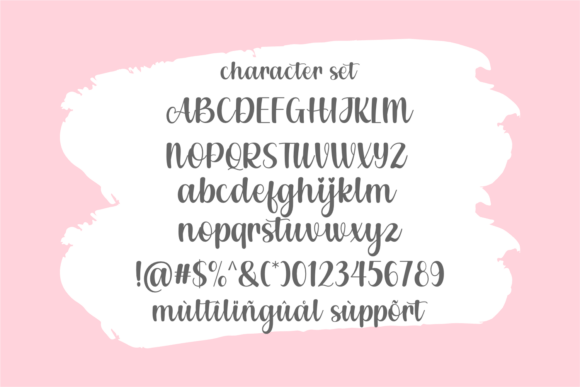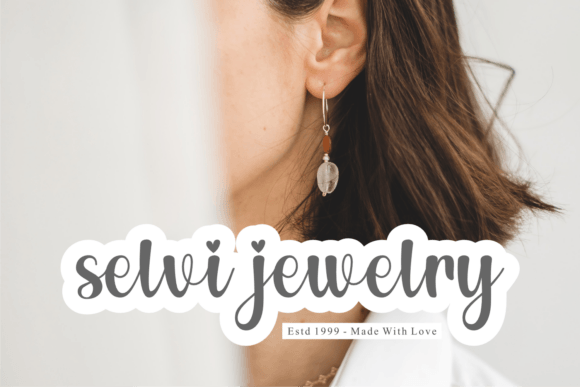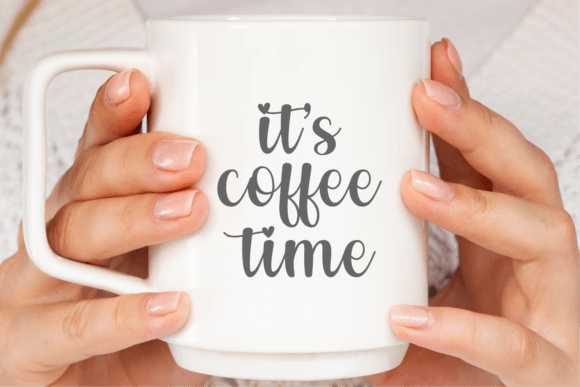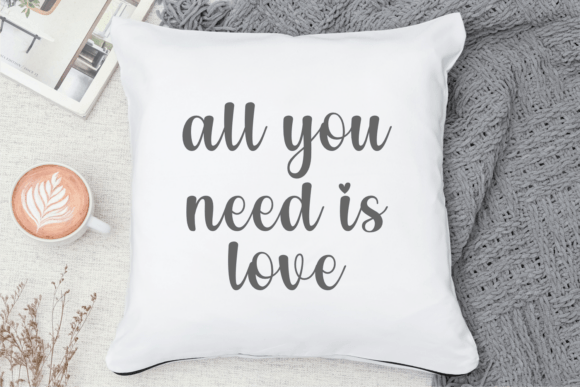
Introduction to Romance Stories Font
Romance Stories is a lovely handwritten font infused with charm and elegance.
Its soft, flowing strokes and delicate heart accents make it perfect for romantic designs such as wedding invitations, Valentineโs Day cards, and love-themed branding Add a touch of sweetness and sophistication to your creative projects with this delightful font.
Key Features of Romance Stories Font
Why Choose Romance Stories Font?